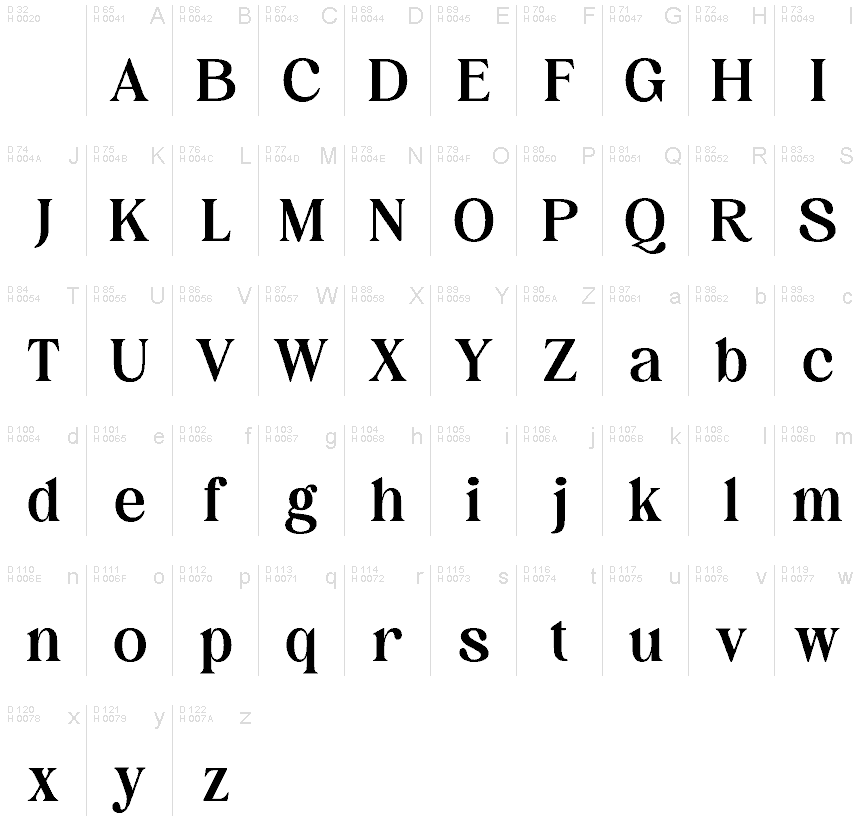
Jovelyn Demo Regular
Jovelyn font is an elegant serif typeface designed by Craft Supply Co. Its classic and sophisticated appearance comes as a result of its refined ends, balanced thicknesses, and generally upscale look. Jovelyn is thus here to take your projects to the next level with much style.
Use it in posters, book covers, magazines, headers or subheaders for articles or website pages. It’s also worth using it in social media shares like Instagram story covers or fashion-related banners and ads. Typography projects like logotypes could very well benefit from its use too.